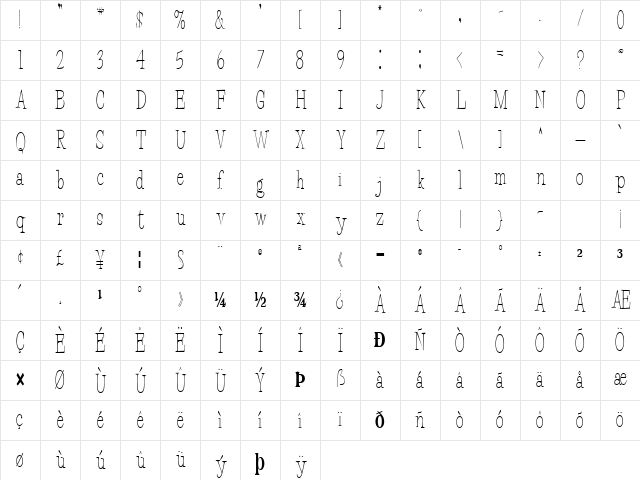
Tyler Regular
Tyler Family
Complete Tyler Regular glyph index. Displaying only characters natively supported by Tyler Regular font.
Design Context for Tyler
Tyler is a composed and adaptable typeface that performs quietly and consistently across a wide range of design contexts.